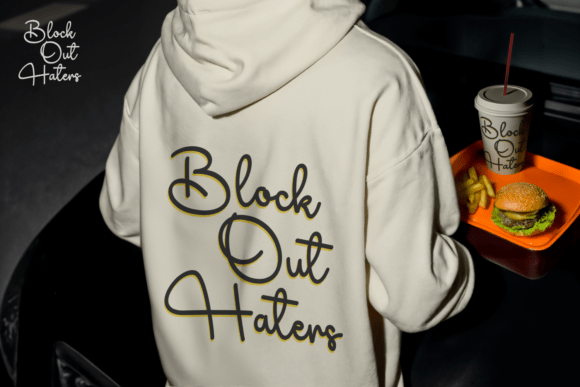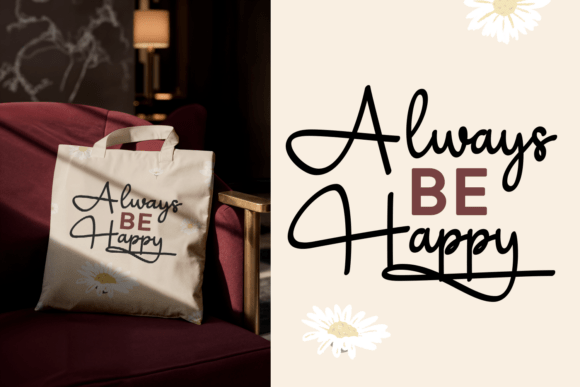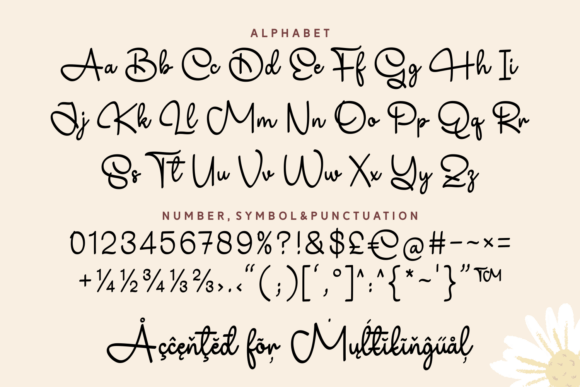
Introduction to Mawing Font
Mawing is a refined and stylish script font that brings a clean, modern edge to handwritten lettering.
Its monoline strokes and elegant swashes lend a sophisticated flair to everything from branding and social media to packaging and invitations Mawingโ€™s simplicity and charm make it versatile for both professional and personal design projects.
Key Features of Mawing Font
Why Choose Mawing Font?
Mawing Font offers exceptional quality and versatility, making it a valuable addition to your design toolkit. Whether you’re creating for personal projects or commercial use, Mawing Font delivers professional results.